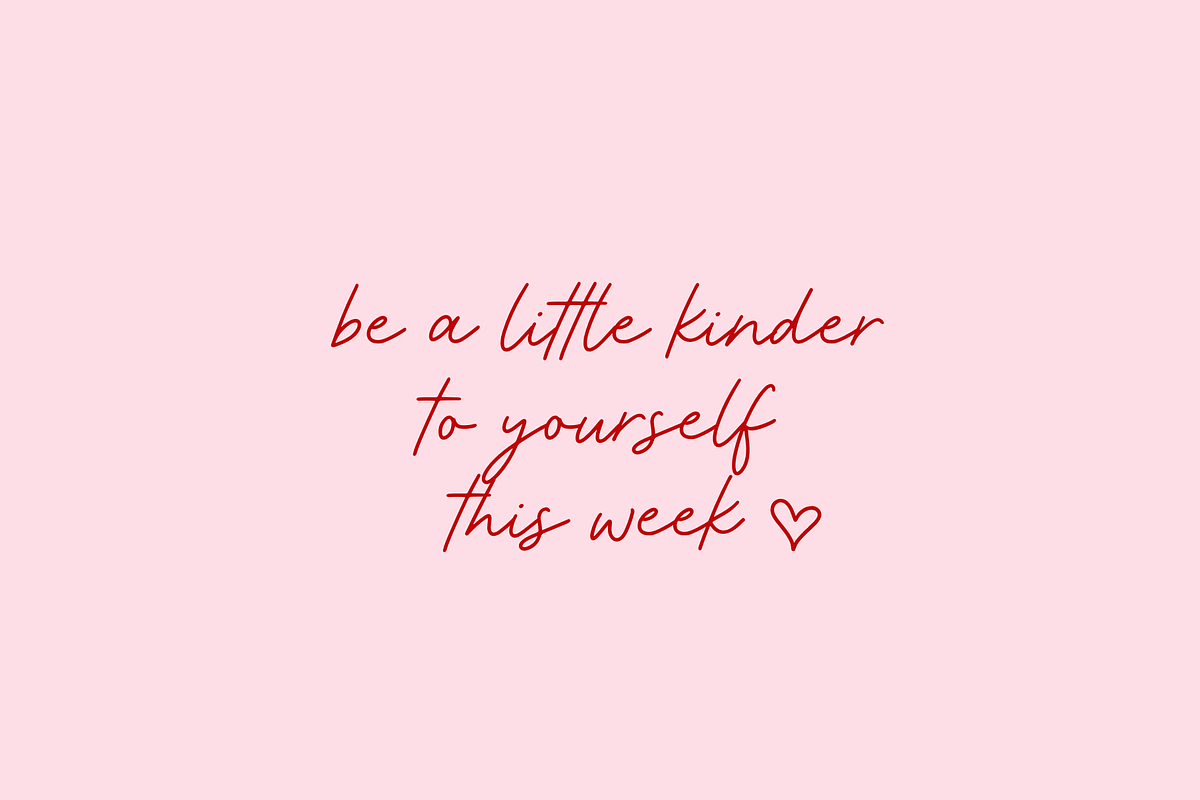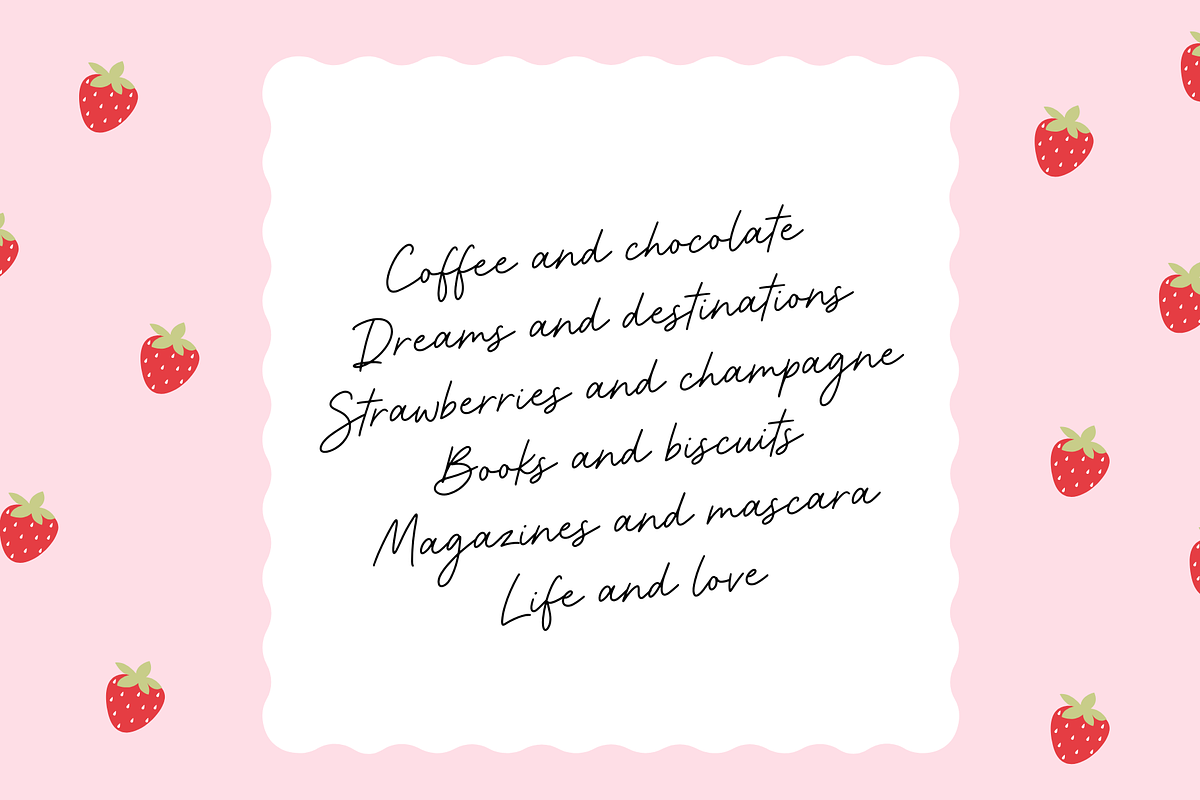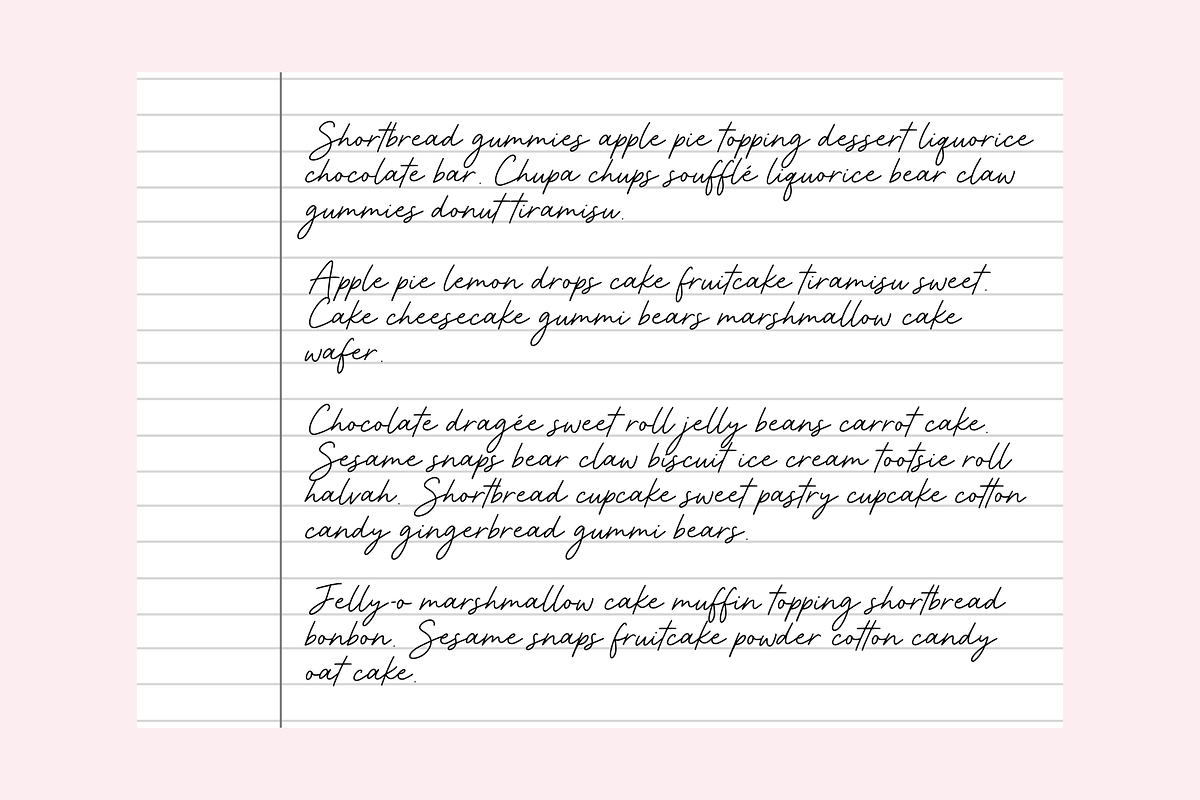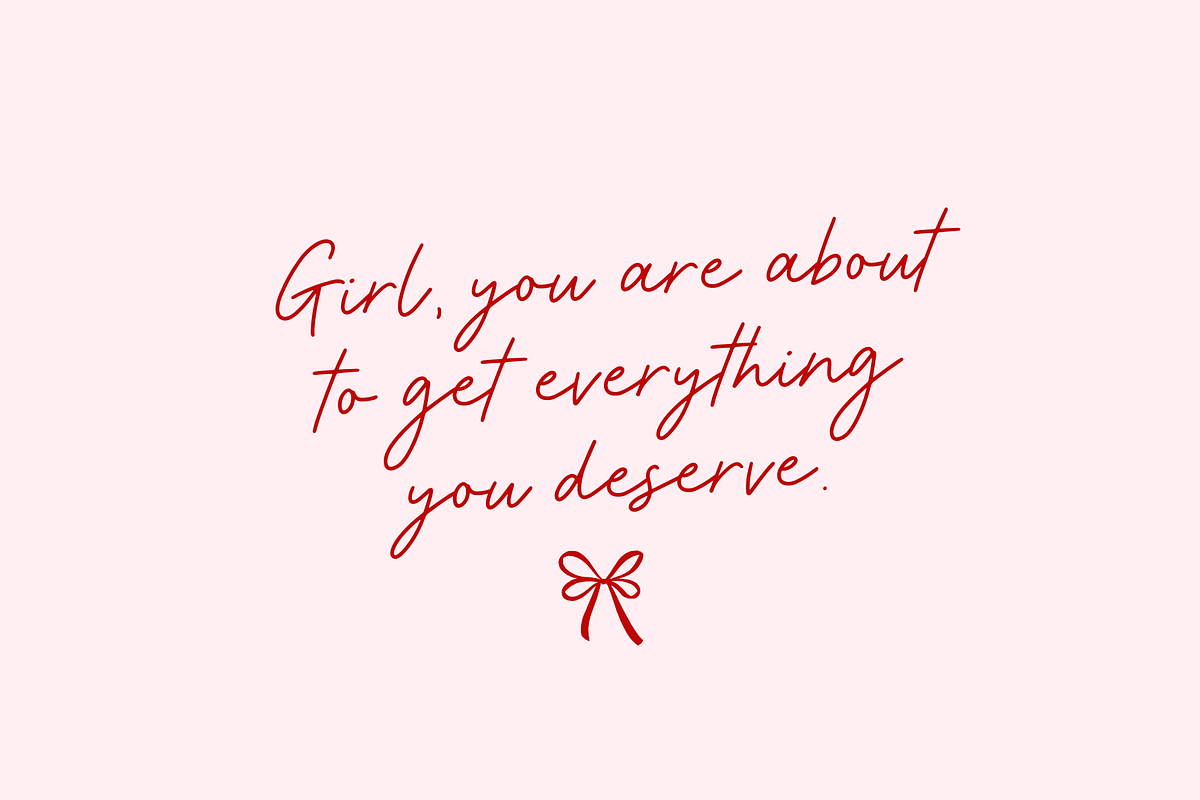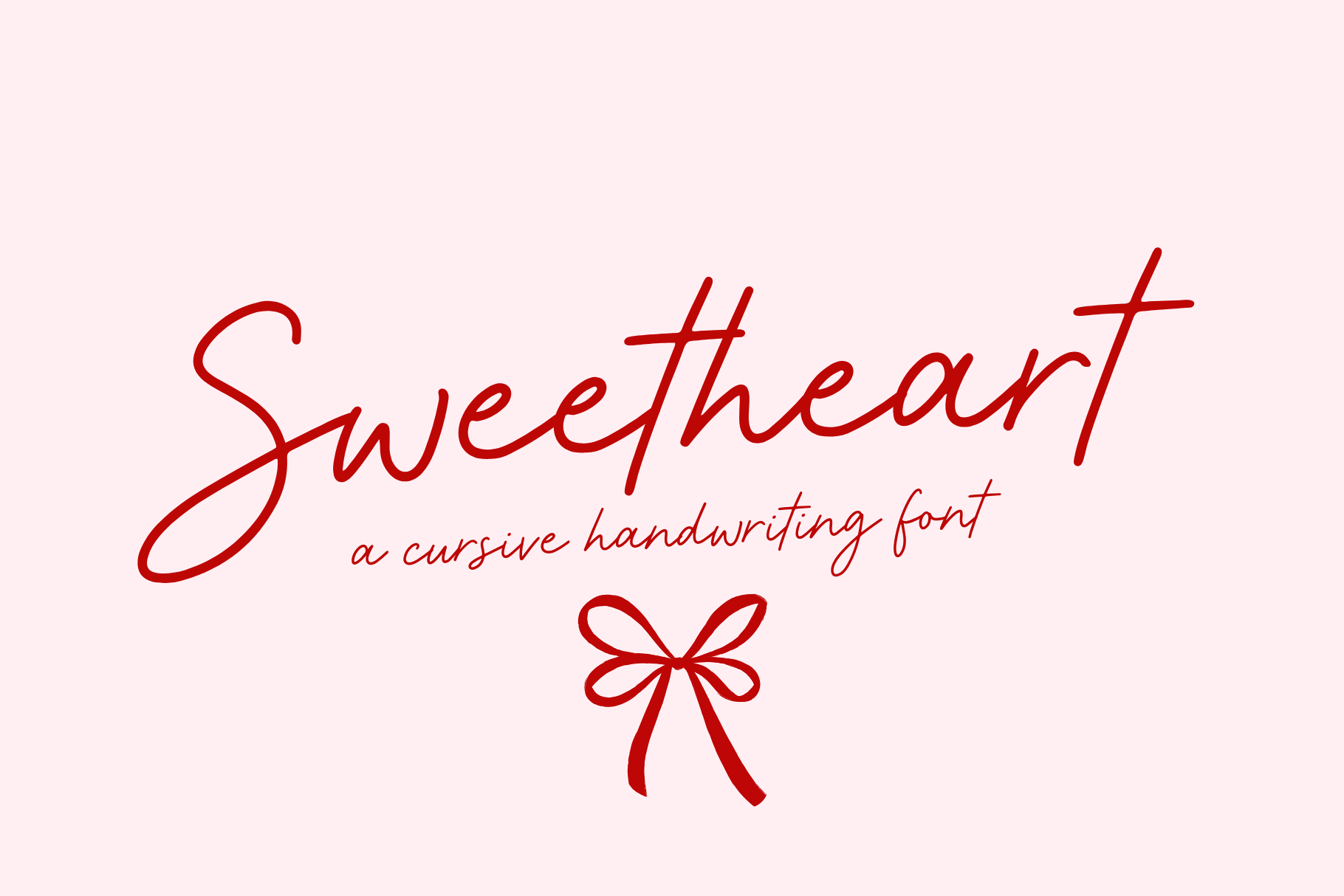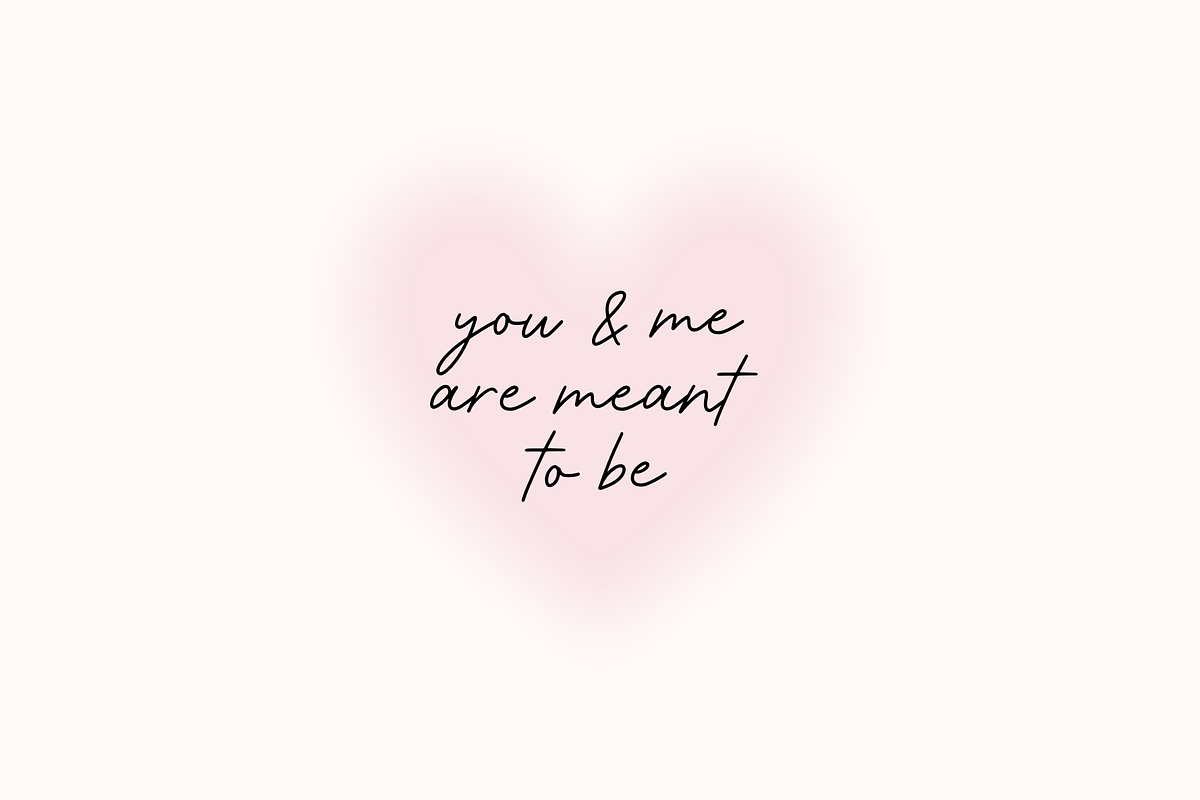
Sweetheart Font
Sweetheart font is a handwritten script font. This font can be used for Procreate, Goodnotes, Photoshop, Canva and more. It's a handwritten cursive font for digital planning, note-taking, logos and digital projects.